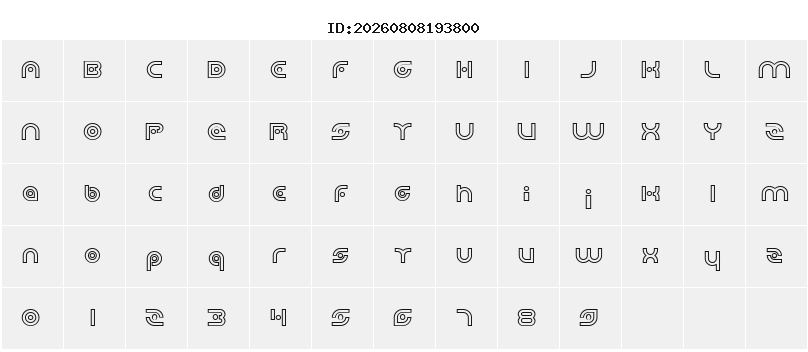
• Font Name: Planetary Orbiter Outline
• Full Font Name: Planetary Orbiter Outline Bold
Planetary Orbiter Outline.ttf is a modern, elegant sans-serif font designed for ultimate readability and visual harmony. Perfect for branding, headlines, web design, and print materials.